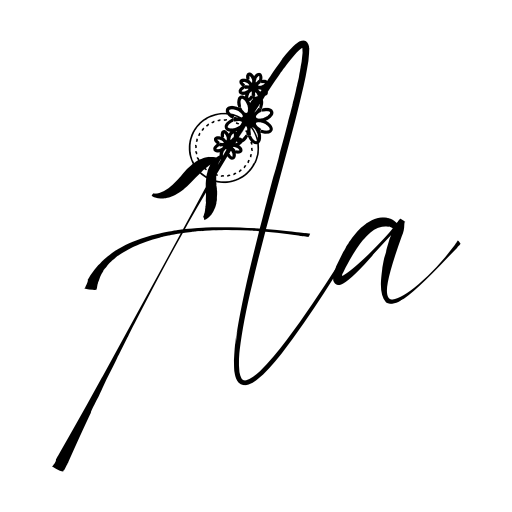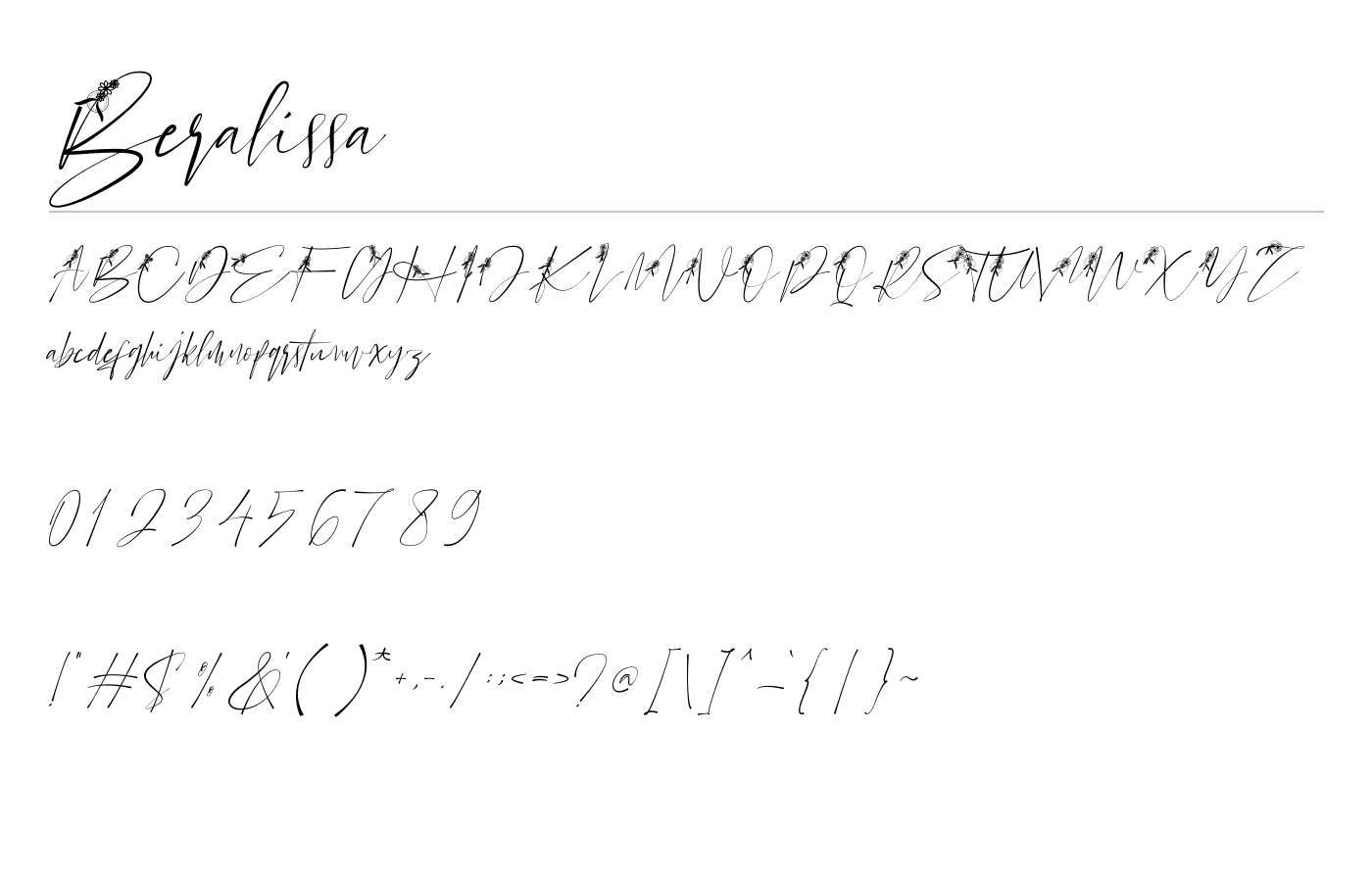
Beralissa is a delicate and elegant script font with thin, flowing strokes that convey a sense of sophisticated femininity. Its slender, handwritten style with unique floral embellishments makes it ideal for wedding invitations, luxury branding, and any design needing a graceful, personal touch. This font works beautifully in logos, headlines, and decorative uses where a refined, artistic feel is desired.
Beralissa Font
About Beralissa Font
| Font family | Beralissa Font |
| Designer | Jada Akbal |